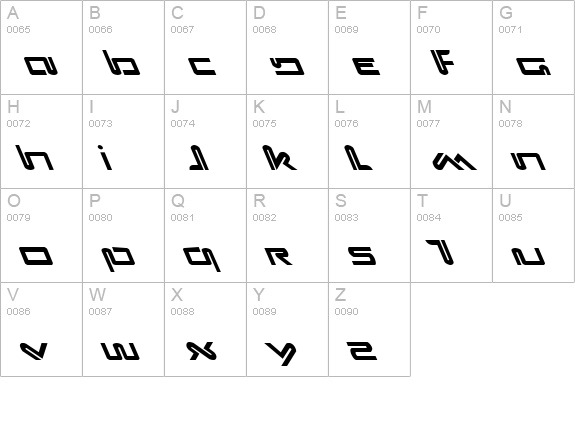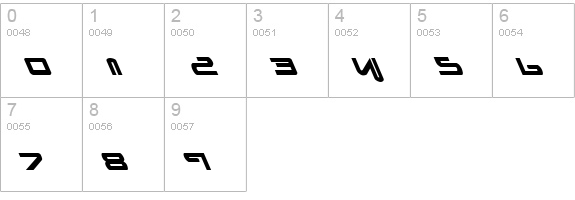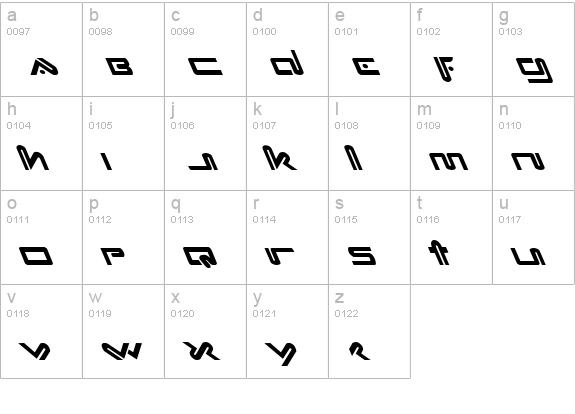
Xephyr Leftalic Font Details
Xephyr Leftalic font is a stunning display typeface that exudes elegance and sophistication. Its sleek and modern design features beautifully crafted italic letterforms that add a touch of flair to any project. The flowing curves and unique shapes of each character make Xephyr Leftalic a versatile choice for a wide range of design applications. What sets Xephyr Leftalic font apart is that it is not only visually appealing but also free for personal and commercial use. This means you can elevate your projects with this exquisite font without any cost restrictions. You can easily download Xephyr Leftalic font at FontsMarket.com, where it is readily available for users to access and incorporate into their creative endeavors. Whether you're working on branding, advertising, packaging, or any other design project, Xephyr Leftalic font is sure to make a bold statement and leave a lasting impression. Embrace the beauty and versatility of this font today and unlock a world of creative possibilities.